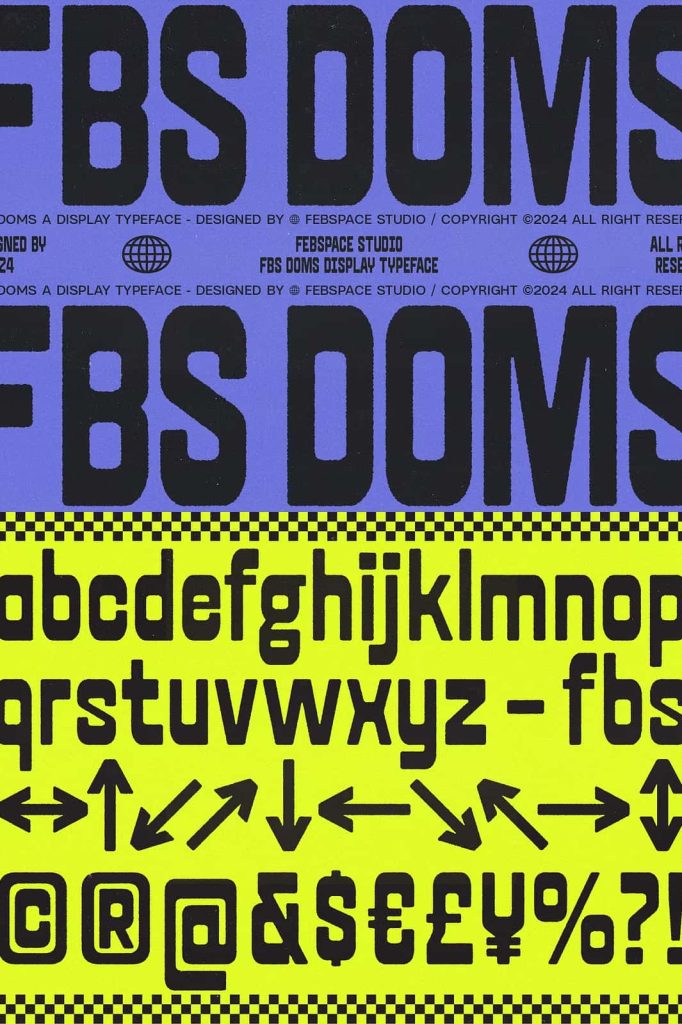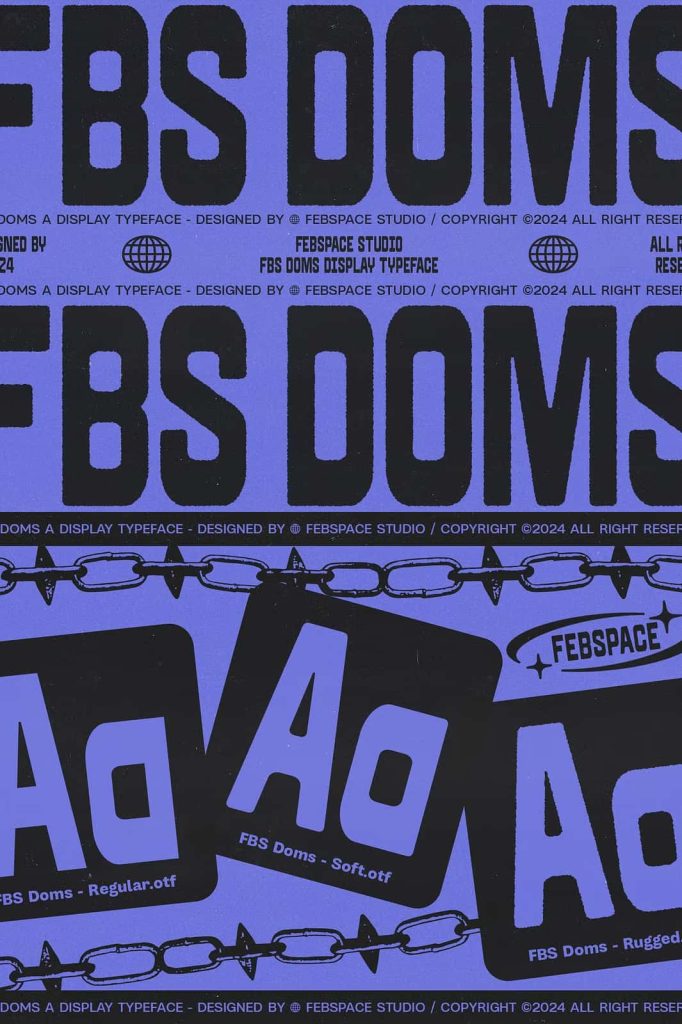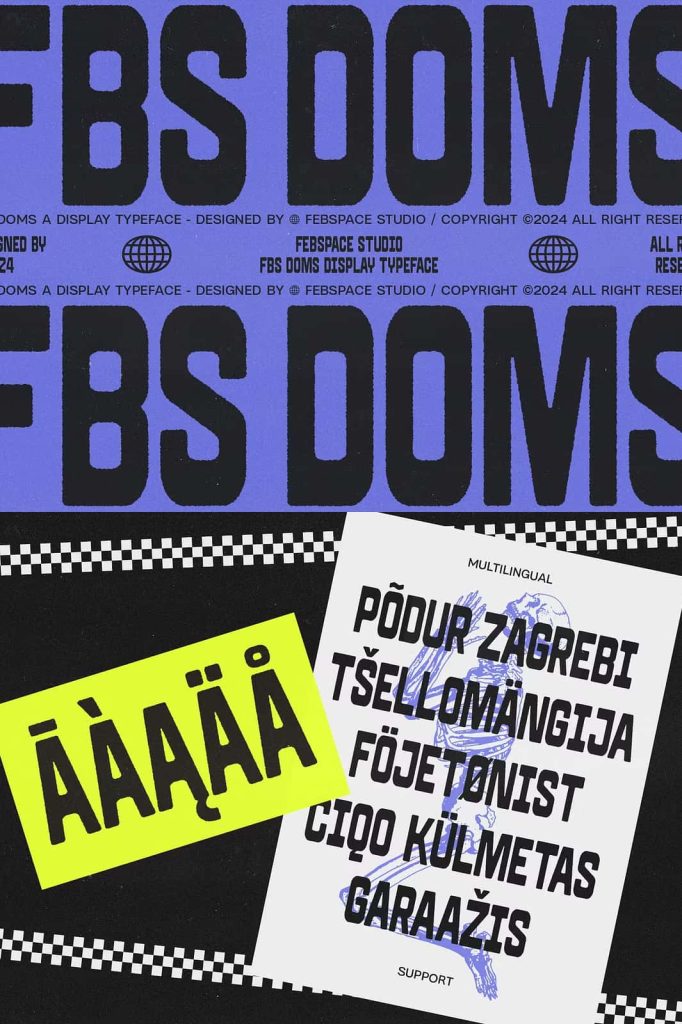
FBS Doms TypefaceleastedFebruary 6, 2025Fonts FBS DOMS is a versatile display font with 3 unique styles: Regular,Soft, and Rugged. Designed to elevate creative projects Download